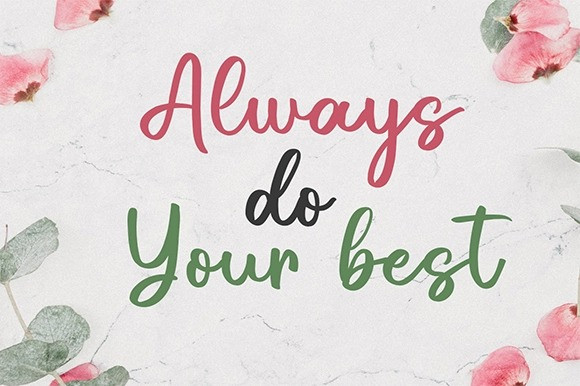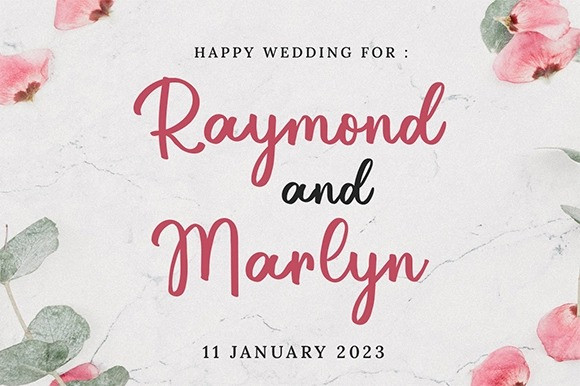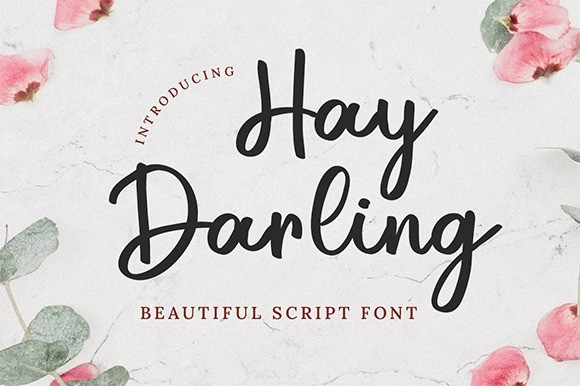
Hay Darling Font
Hay Darling Script Font is a sweet and cool script that easily combines legibility and authenticity! This font is suitable for use on weddings, social media, logos, magazines, quotes, fashion, watermarks, invitations. This font is PUA encoded which means you can access all of the glyphs and swashes with ease!